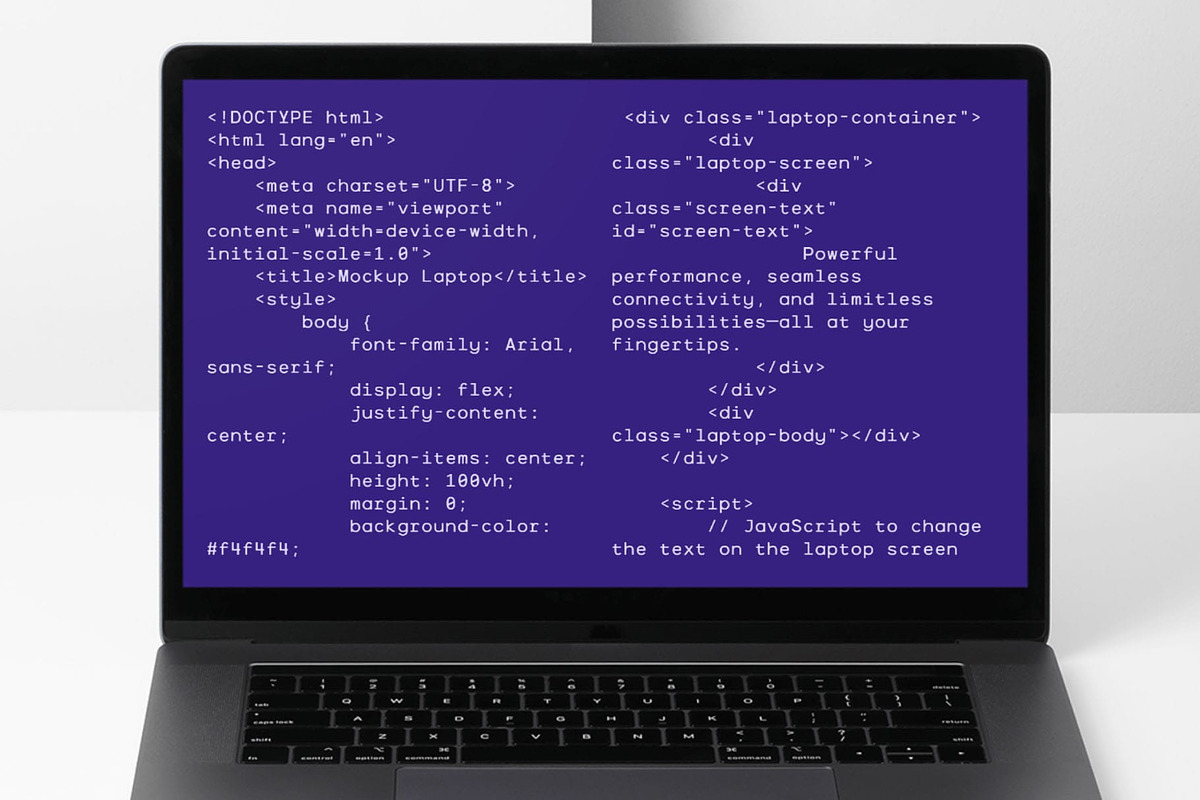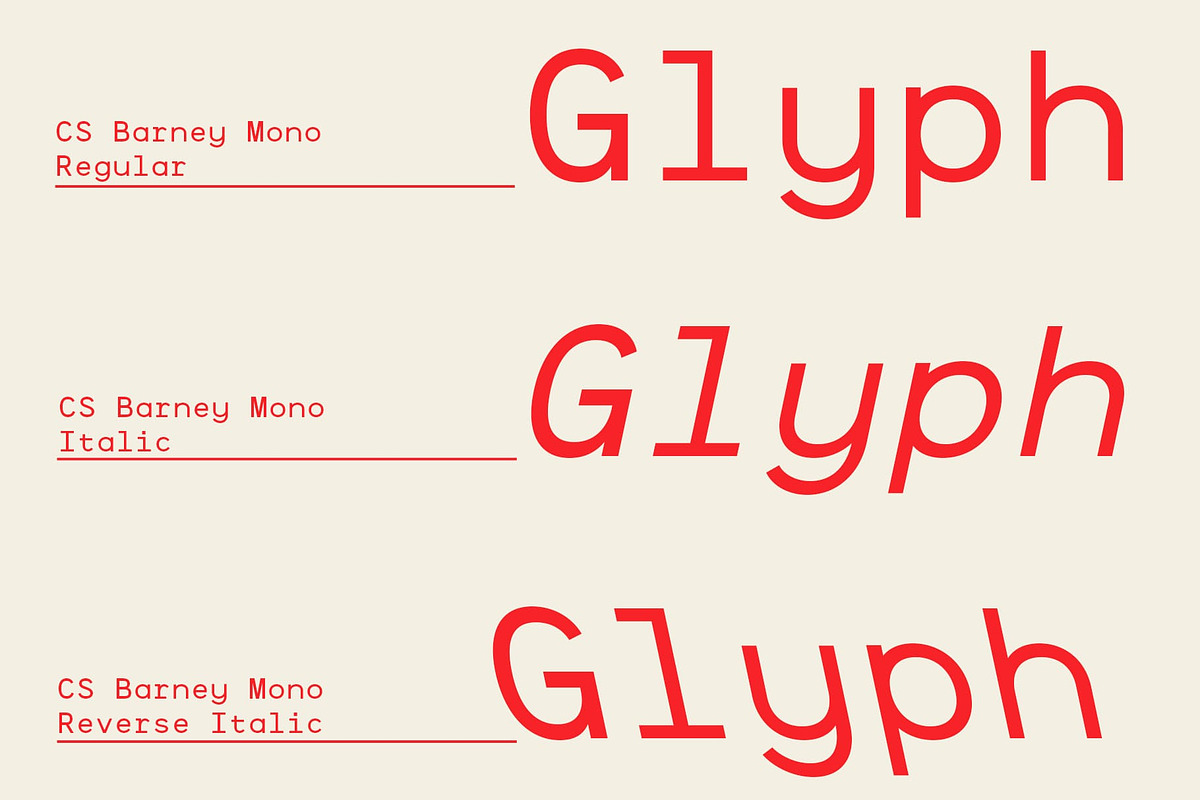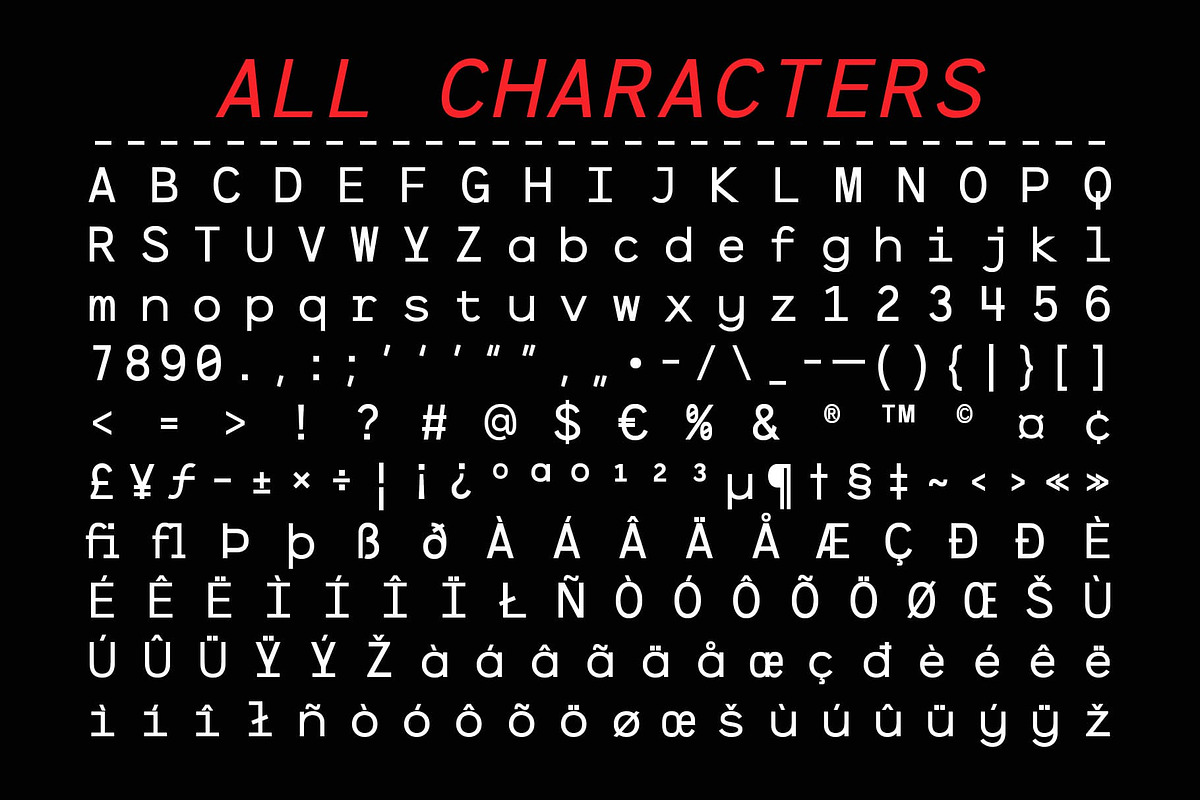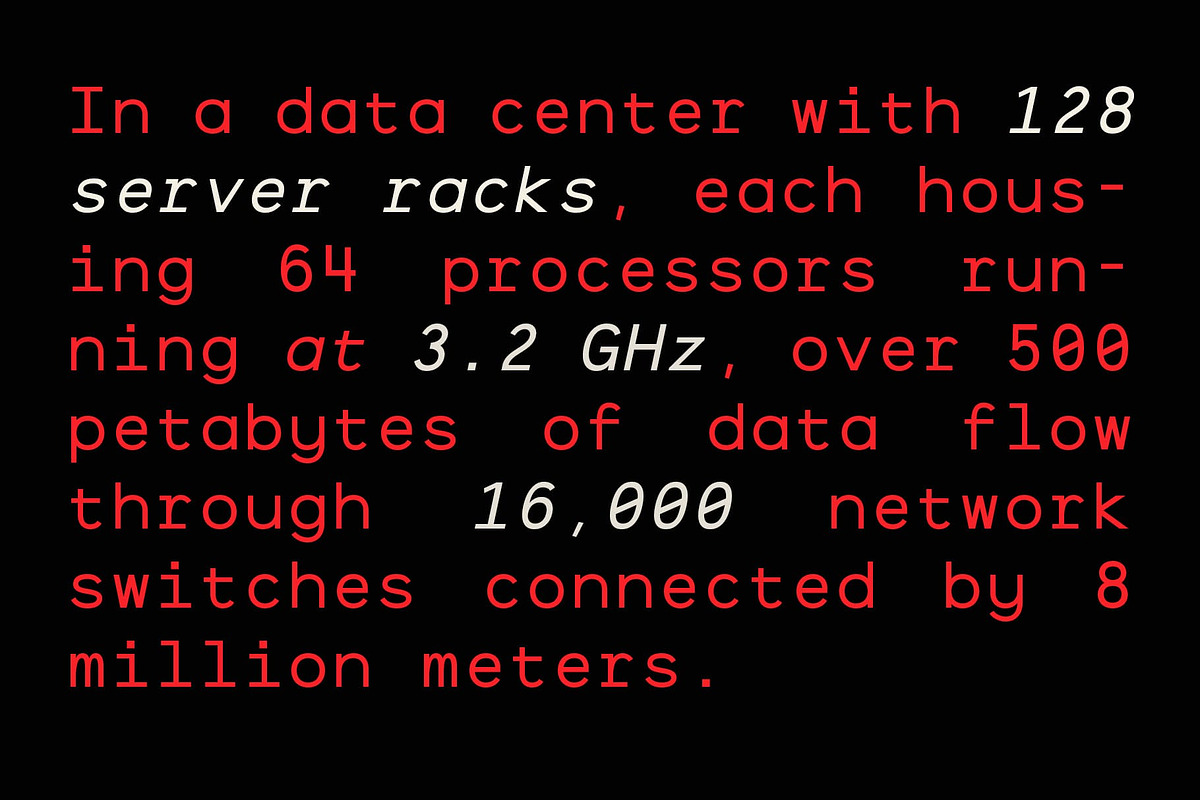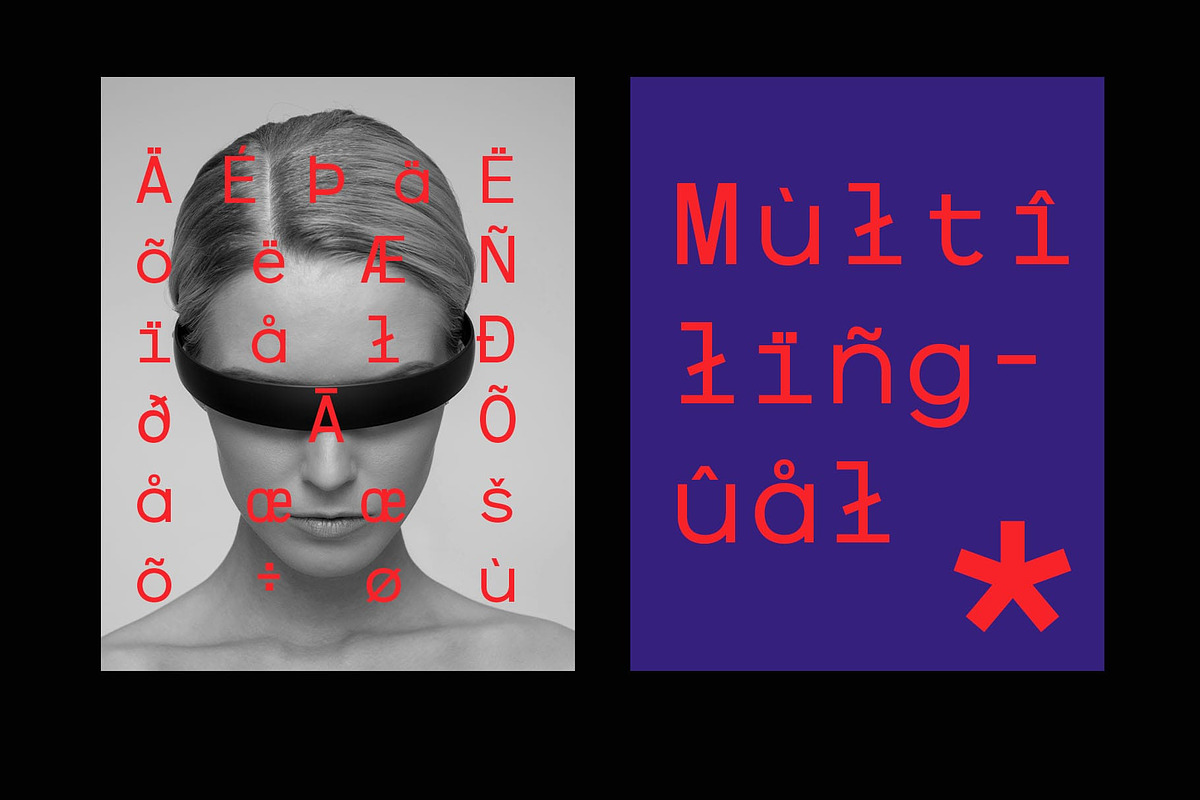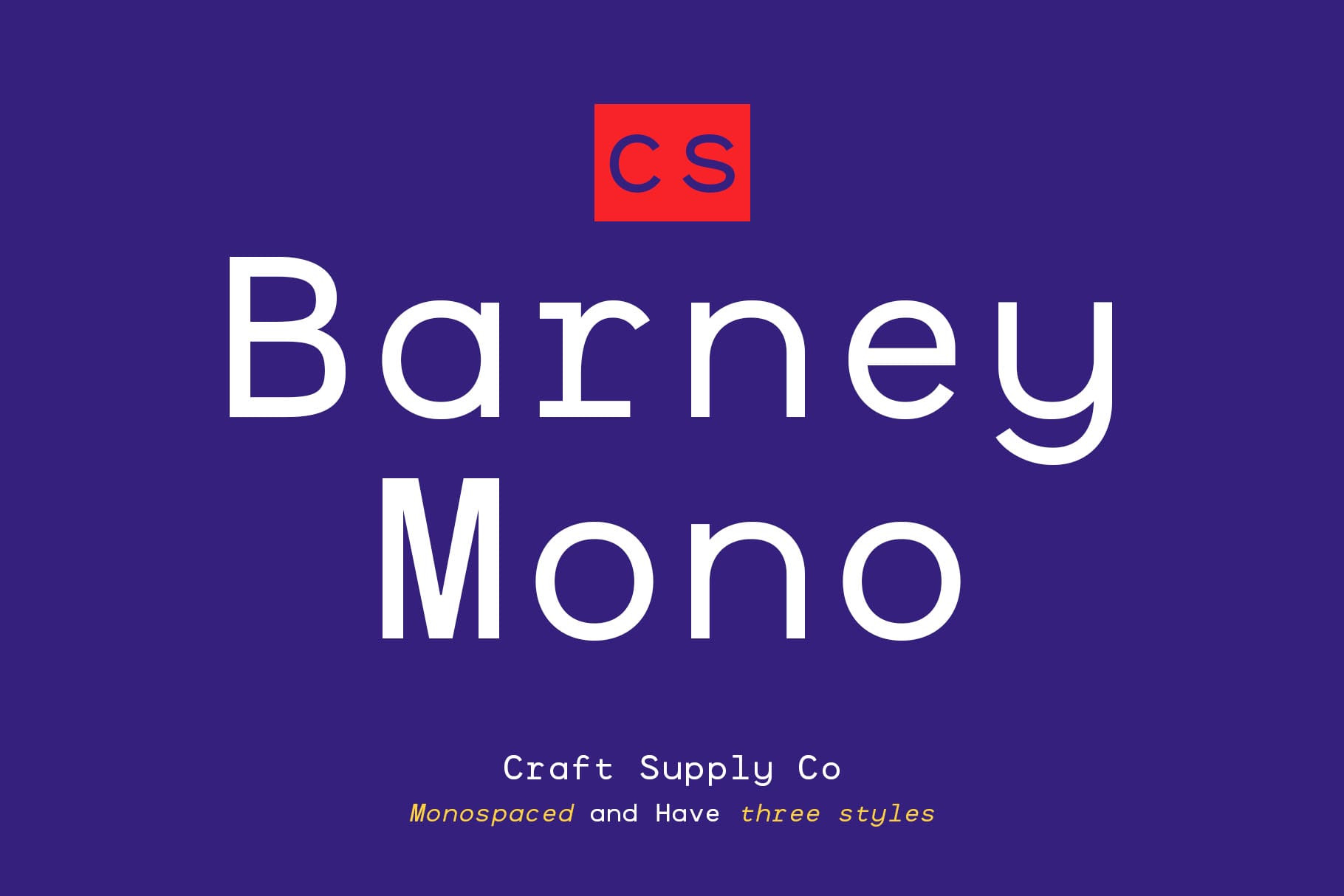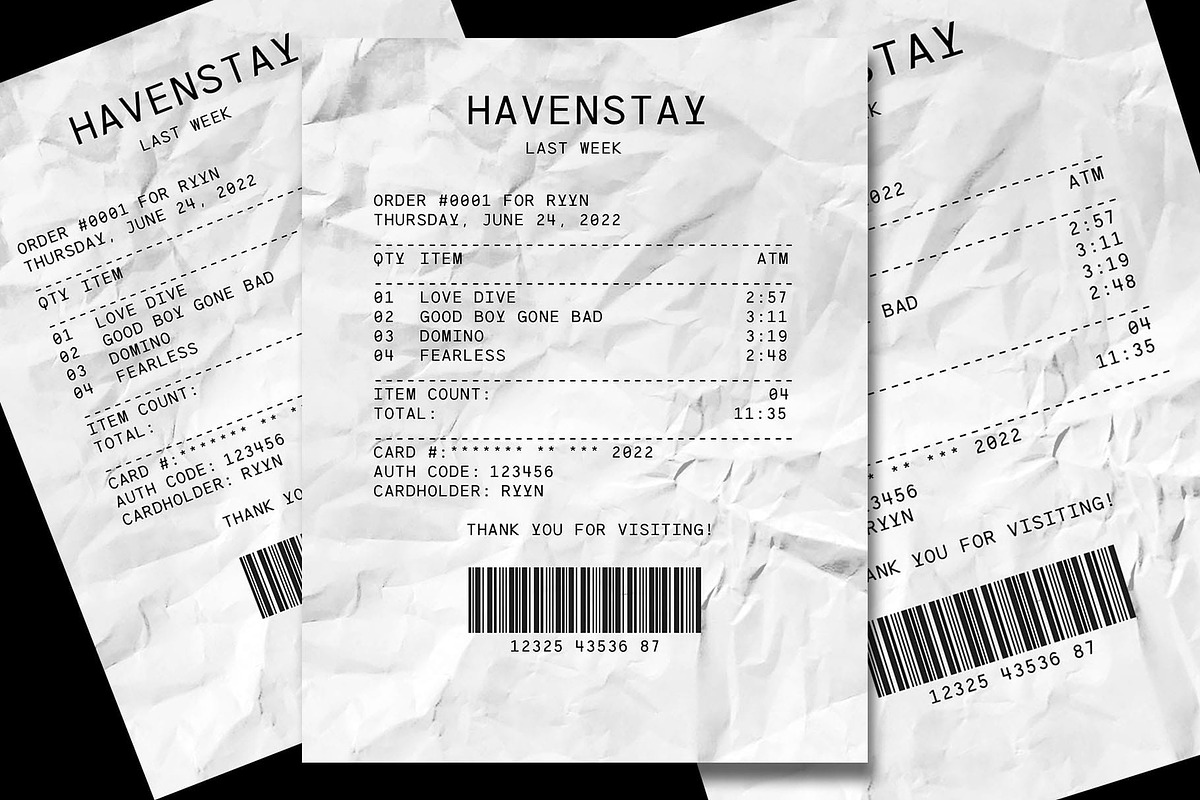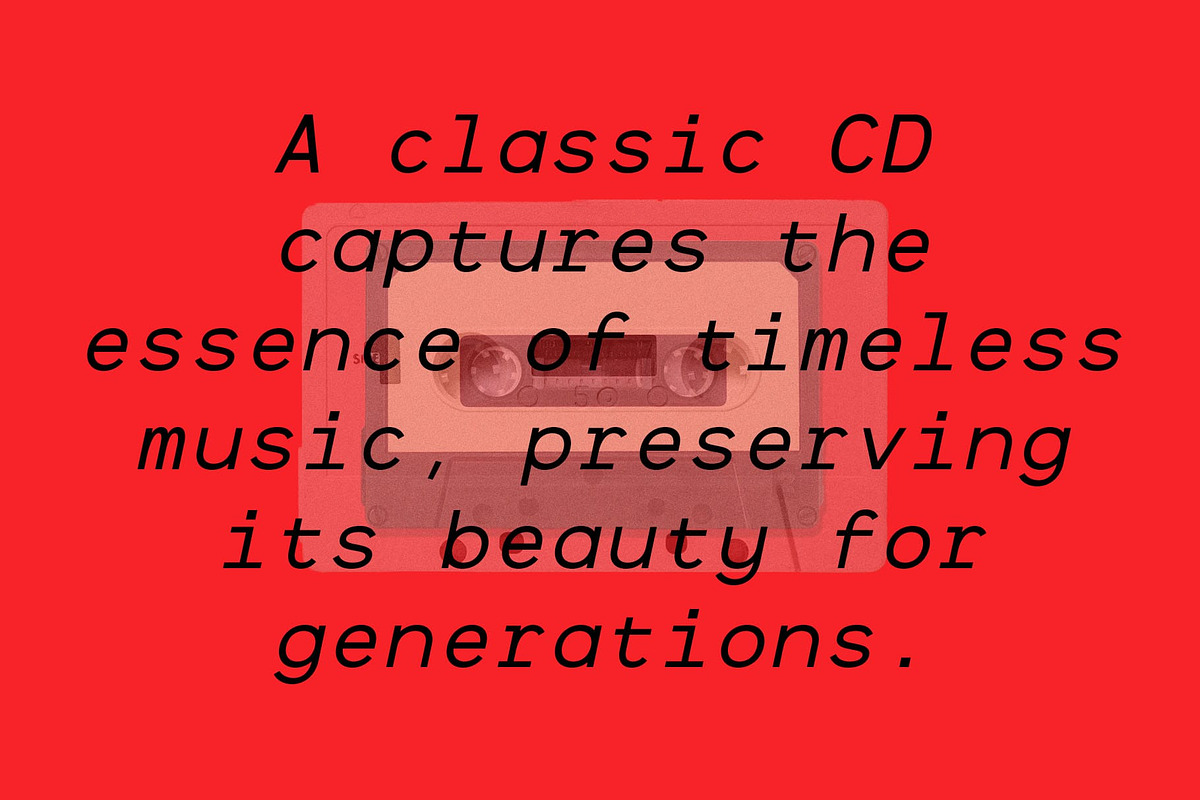
CS Barney Mono – Monospaced Font
CS Barney Mono – Modern Monospaced Sans Serif Font
Clarity and Precision in Every Character CS Barney Mono is a modern sans serif monospaced font designed for optimal clarity, precision, and balance. With its evenly spaced characters and clean design, it ensures consistency and legibility, making it a versatile choice for a wide range of professional applications.
Ideal for Coding and Technical Layouts The monospaced structure of CS Barney Mono is perfect for coding, programming, and technical documents. Its uniform spacing enhances readability in environments where precision is paramount, providing a seamless experience for developers and technical designers alike.
Perfect for Branding and Creative Projects CS Barney Mono extends its functionality beyond technical applications, offering a modern and structured aesthetic for branding and creative designs. Its clean and consistent appearance makes it suitable for logos, packaging, and visual identities that demand a contemporary and professional feel.
Versatility for Clean, Consistent Design Whether you’re creating a technical interface, designing a sleek brand identity, or formatting structured documents, CS Barney Mono delivers clarity and balance. Its modern sans serif style, combined with its monospaced precision, ensures a polished and cohesive look for any project.
- CS Barney Mono Regular
- CS Barney Mono Italic
- CS Barney Mono Reverse Italic